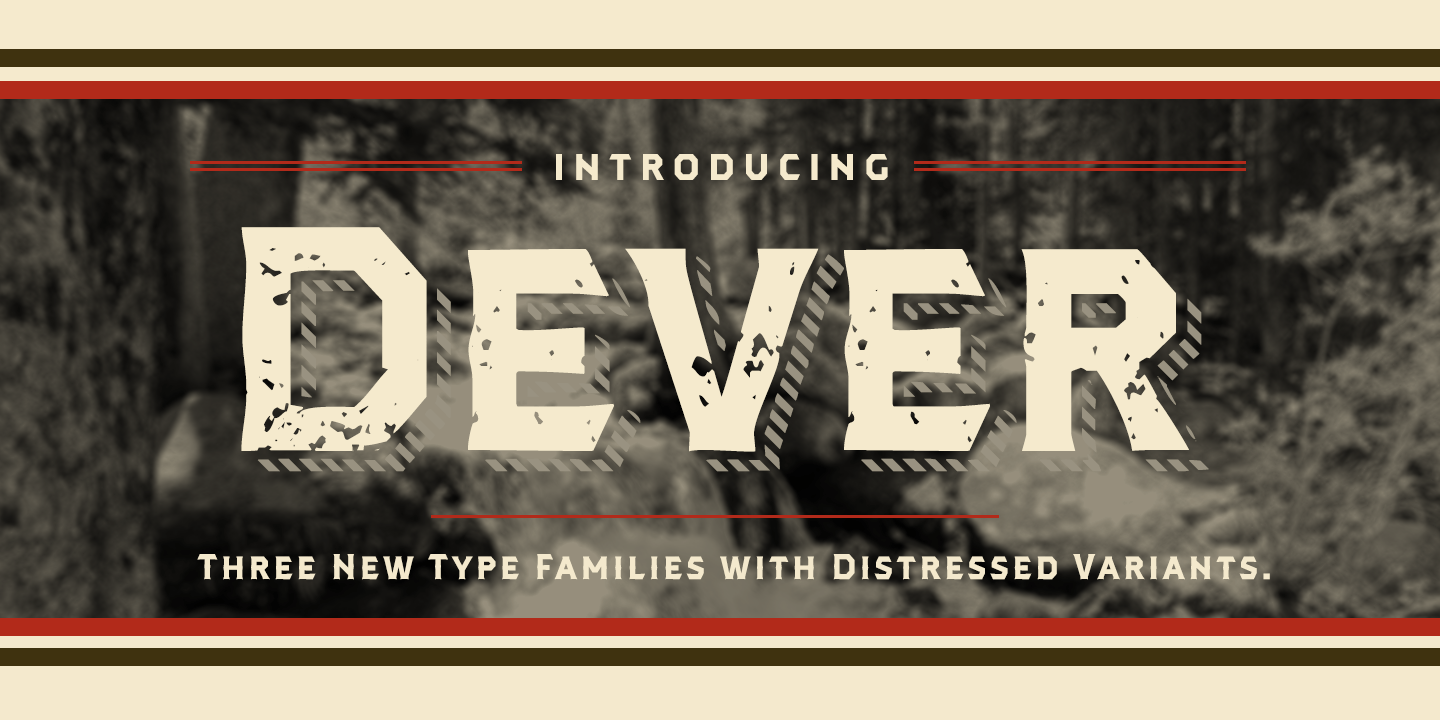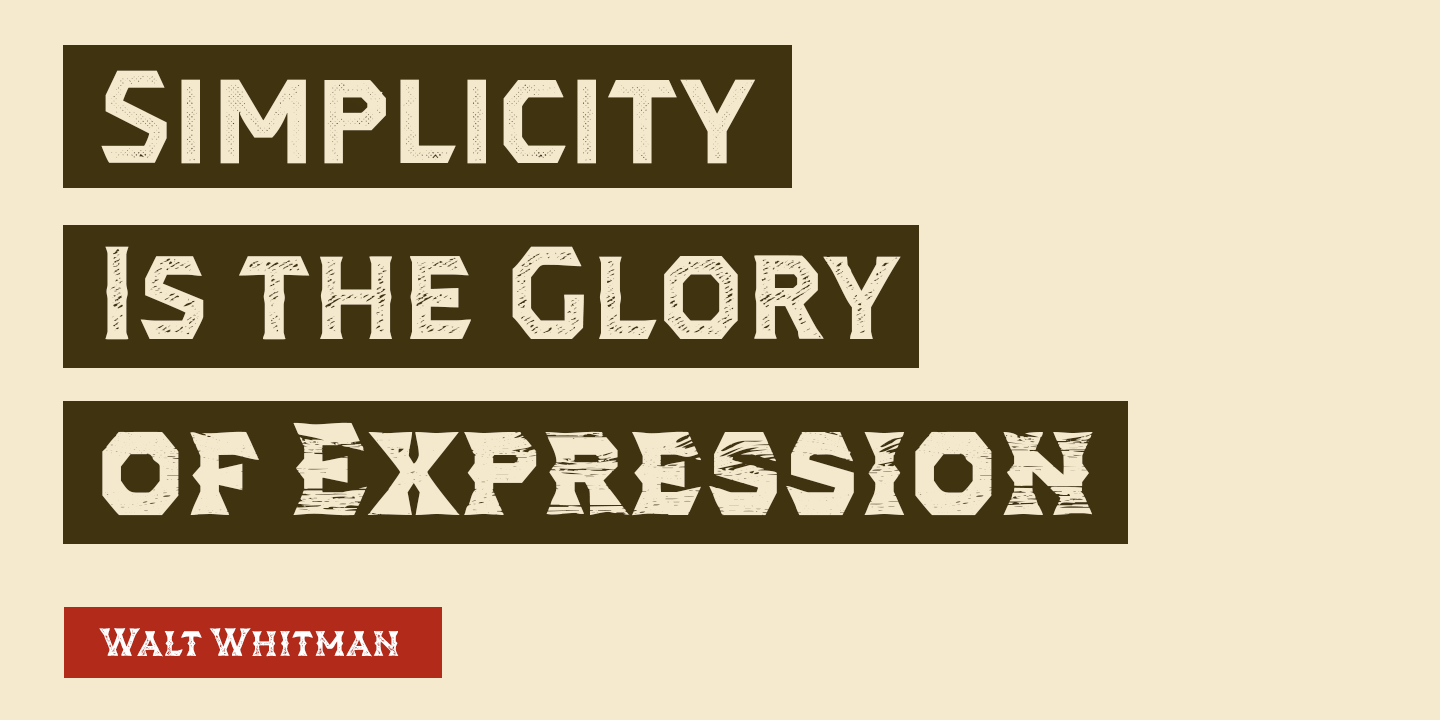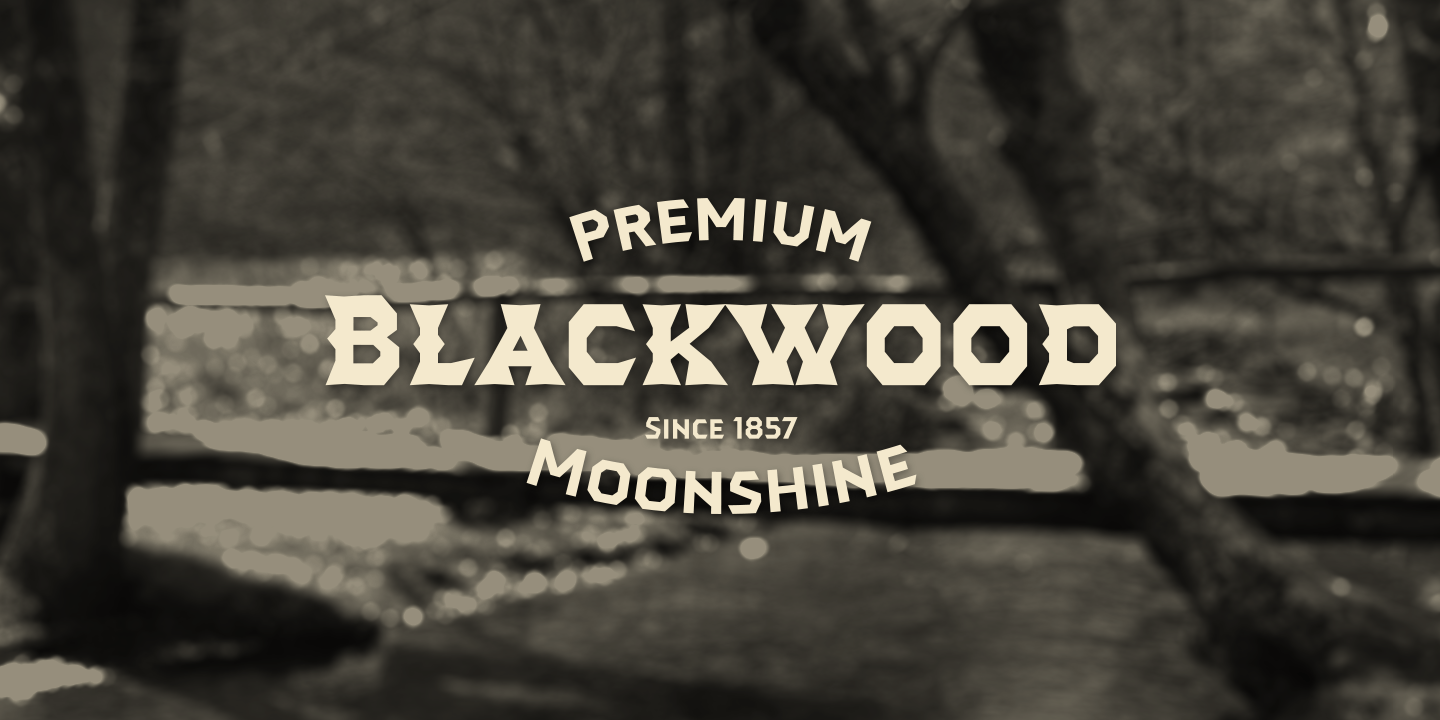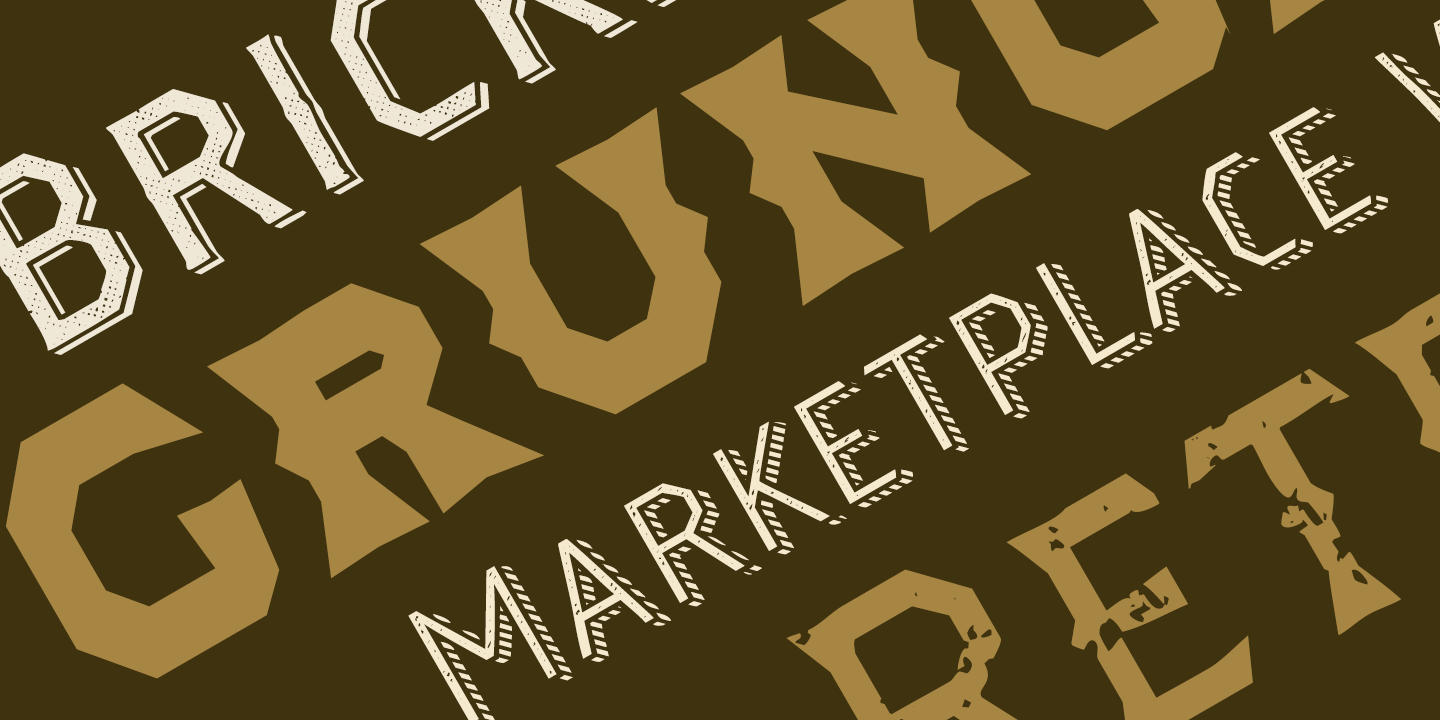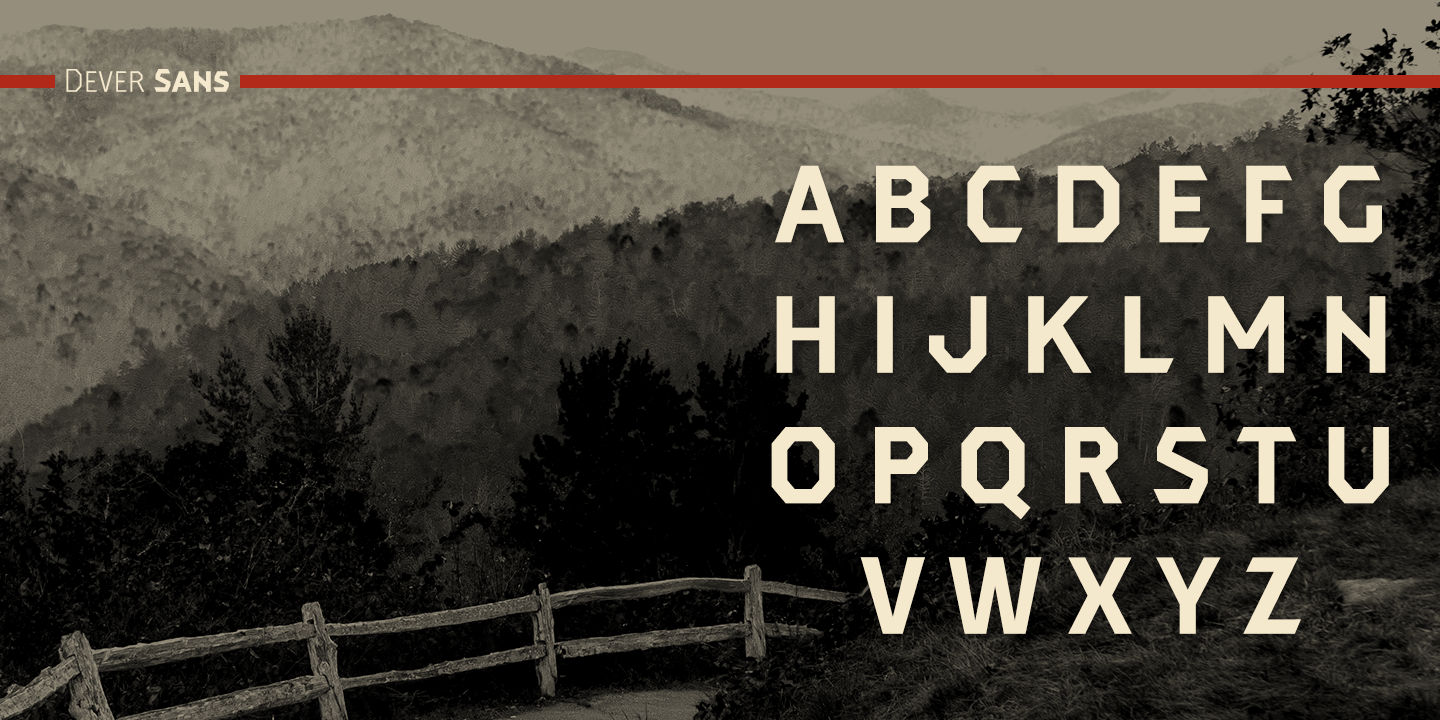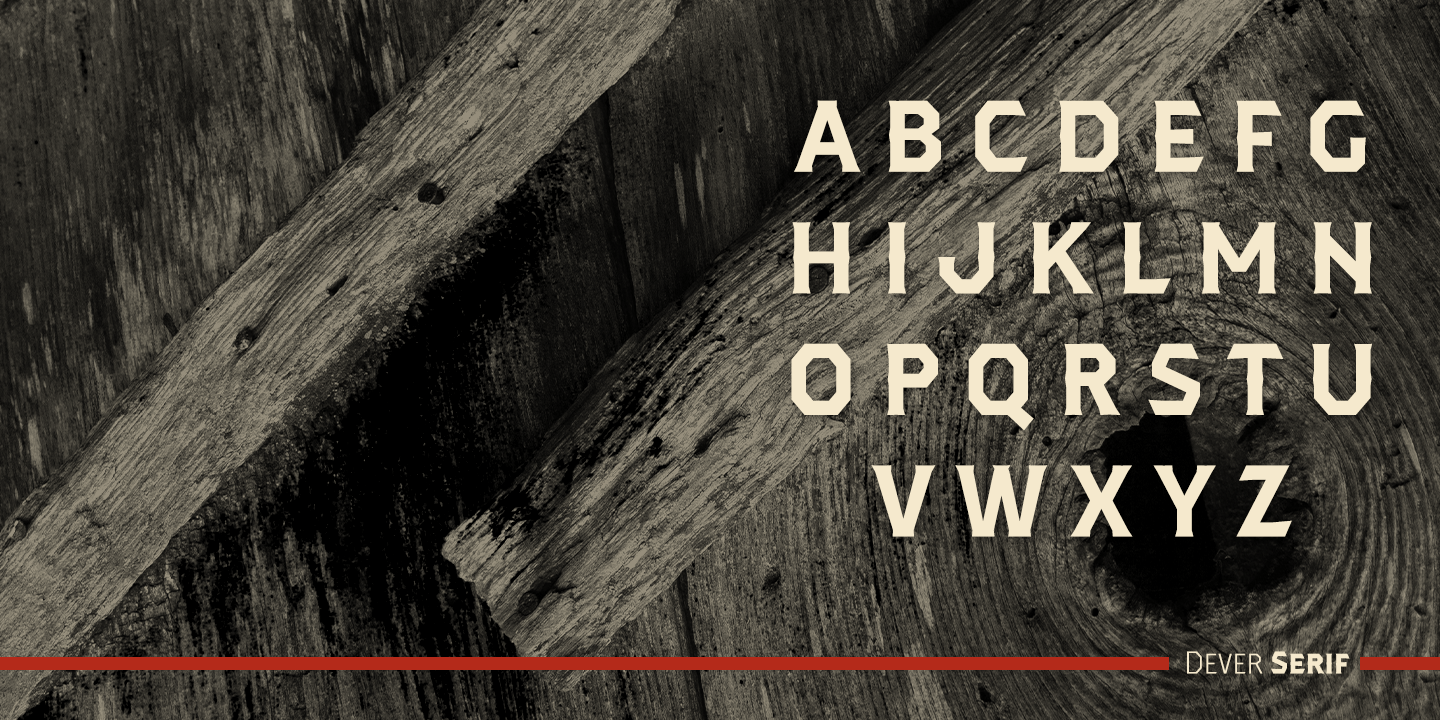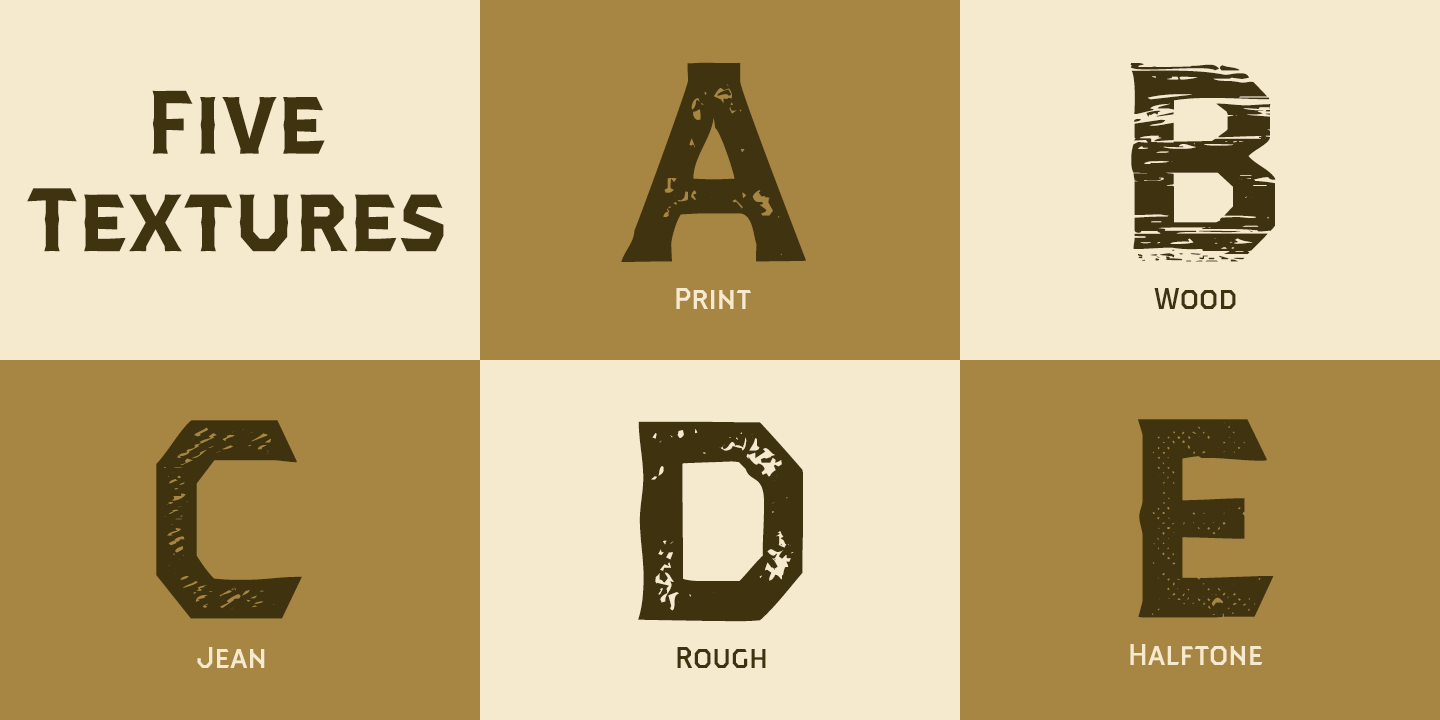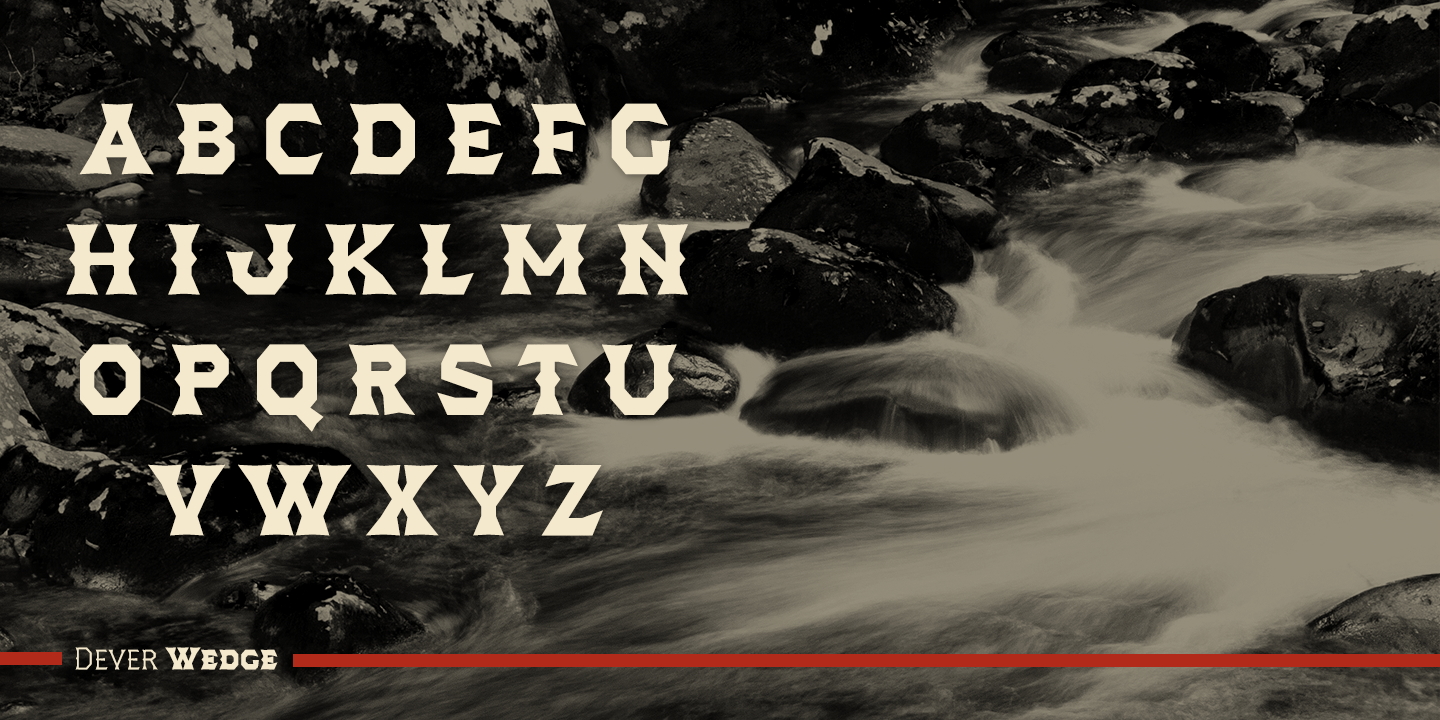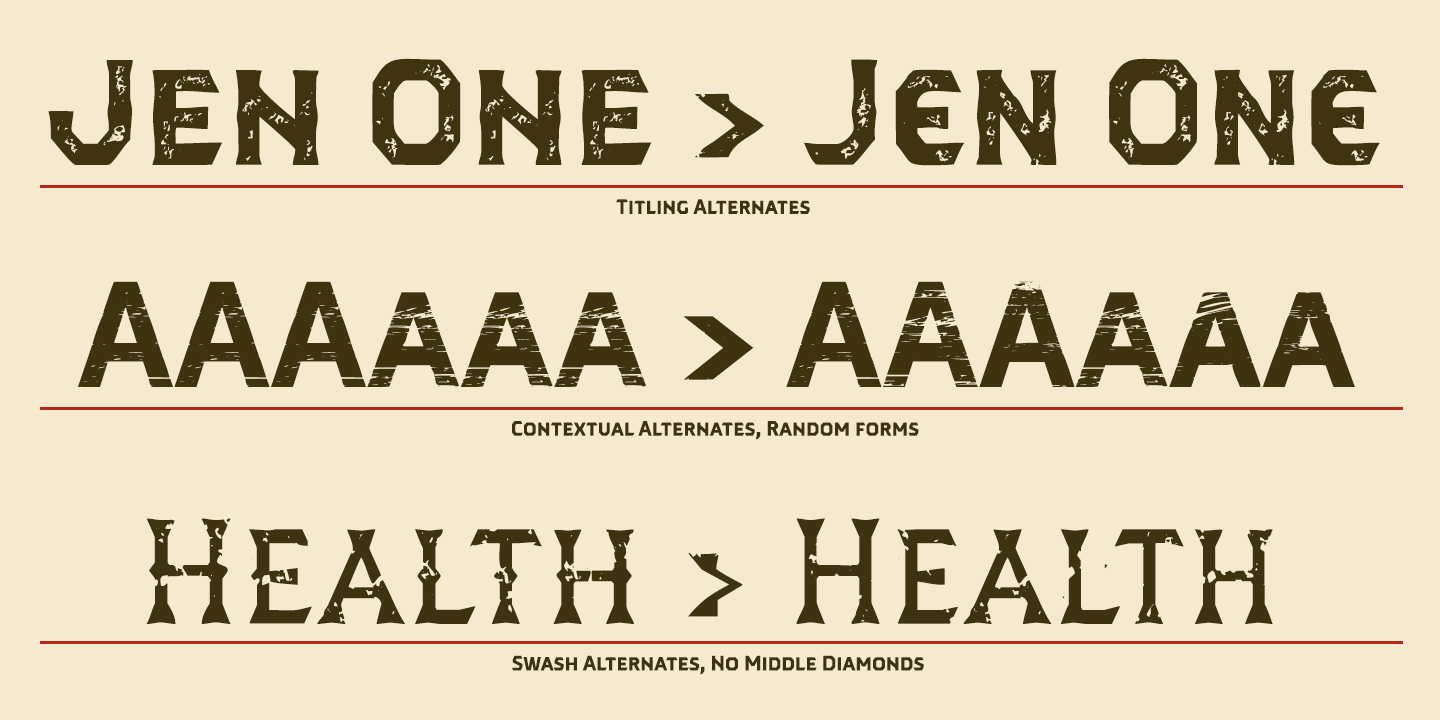
Dever
Dever's brute, industrial lines are rounded up in this new typeface from Jeremy Dooley. Dever combines plenty of inspirations. It's the flair of the Wild West melded with a shout out to the sign painters and package lettering artists of the 1800s. Dever's big, bold, and handy frame moves through all three of the family's strapping members.
First is the sans. No doubts on what this brother's like. Dever Sans is as straight-forward as you'll find in this family with its four separate weights and numerous distressed options. The second of the kin's a bit of half-breed, you might say. Pointed serifs bring a sharpness to this outfit. Rounding out the family is Dever Wedge, a bit of wild rodeo all its own. This poke's a quick draw with any of its 107 font, and with it's auto-replacing alternates, no two repeating characters are alike. You're guaranteed a great show anytime Dever leaves the chute.
The route to Dever was long, with many a switchback. The Wedge variant was designed first, shelved, then developed into Plathorn. But I wanted to return to those brutish forms and decided to round out the family with a sans, serif and plenty of other options.
Any of the Dever family have an extended character set including Central and Eastern European languages. The strong faces have specially adapted sub-families, too, so they're bound and determined to have an outstanding impact at whatever size you use ?em. It's a hard ride ahead corralling all those words. Be sure and add these able-bodied boys to your posse today!